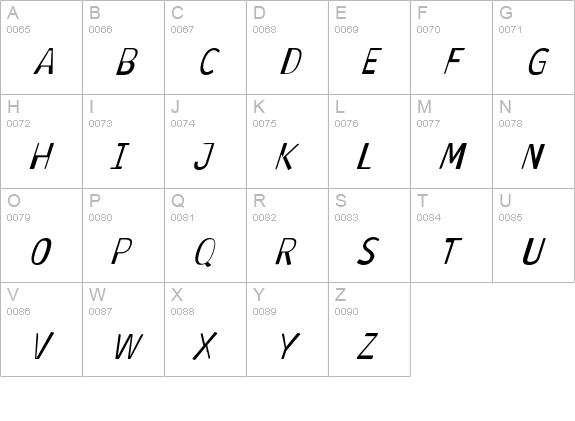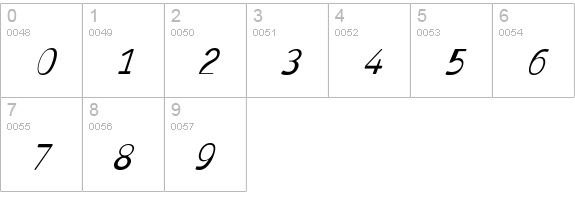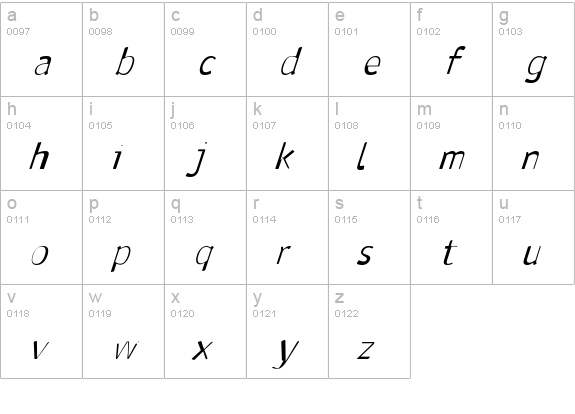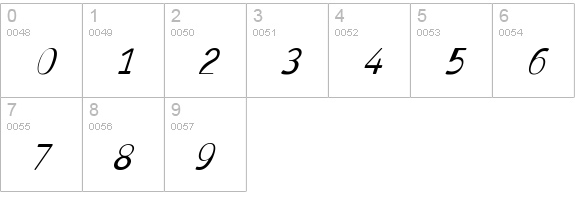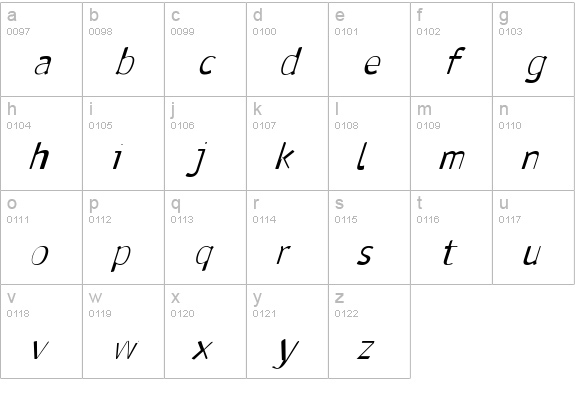
Antaviana Italic Font Details
Antaviana Italic is a distinctive, italic variant in the Antaviana typeface family \xE2\x80\x94 well suited to design and typography projects.
Antaviana Italic font is a stunning typeface that exudes elegance and sophistication. With its graceful curves and delicate strokes, this font is perfect for adding a touch of class to any design project. The italic styling adds a sense of movement and fluidity, making it ideal for creating a sense of dynamism and energy in your text. Best of all, Antaviana Italic font is available for free download at FontsMarket.com. Whether you're working on a personal project or a professional design, this font is sure to elevate your work to the next level. Download Antaviana Italic today and add a touch of timeless beauty to your creations.